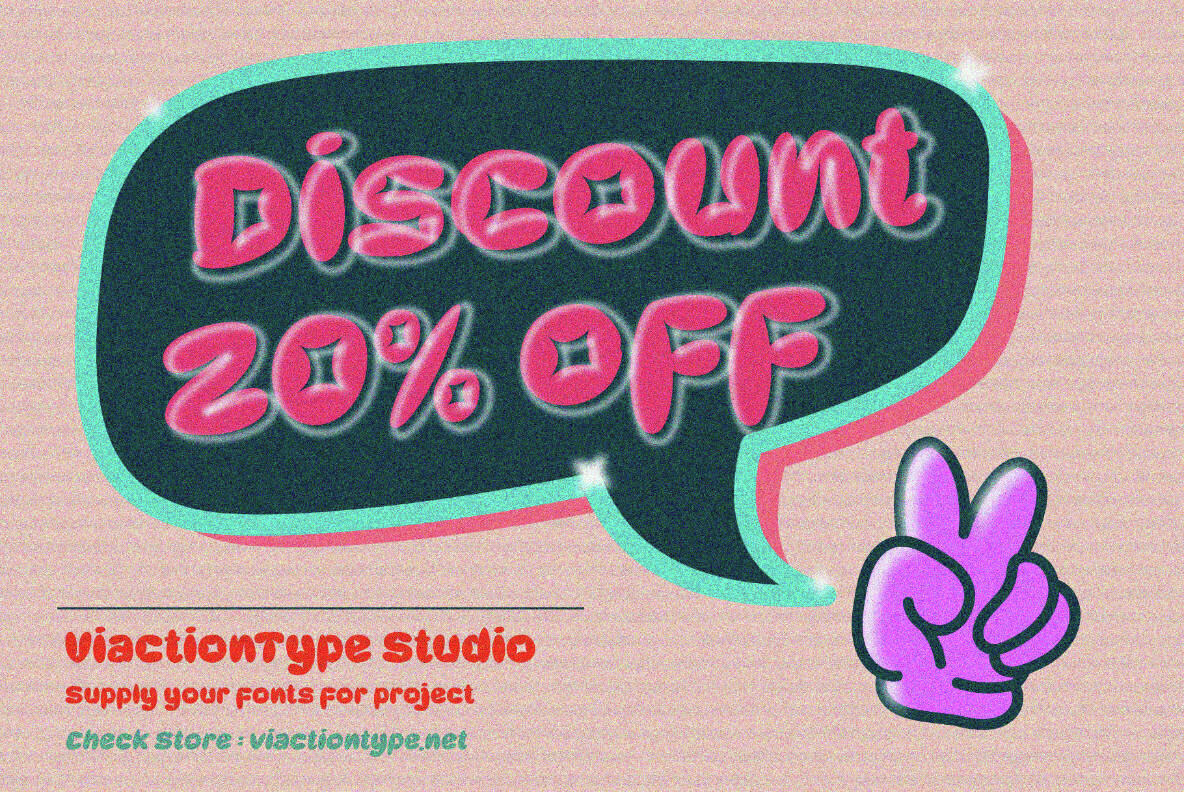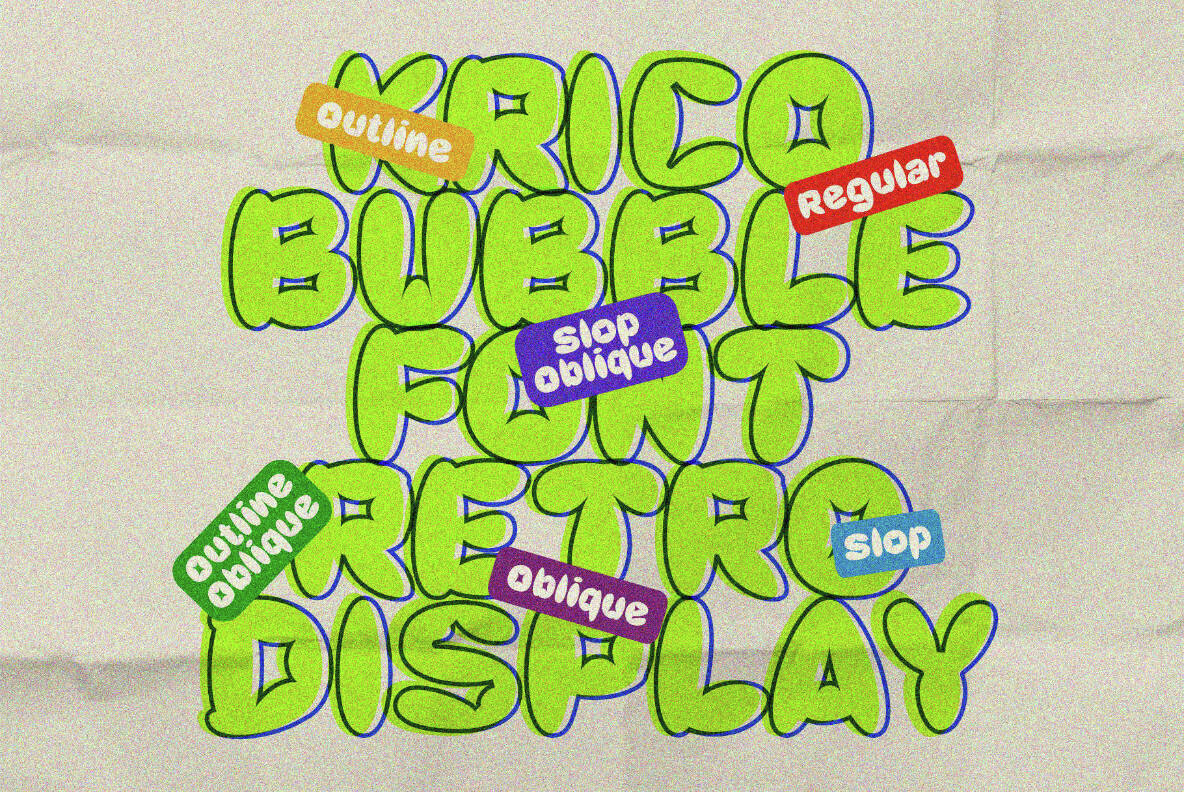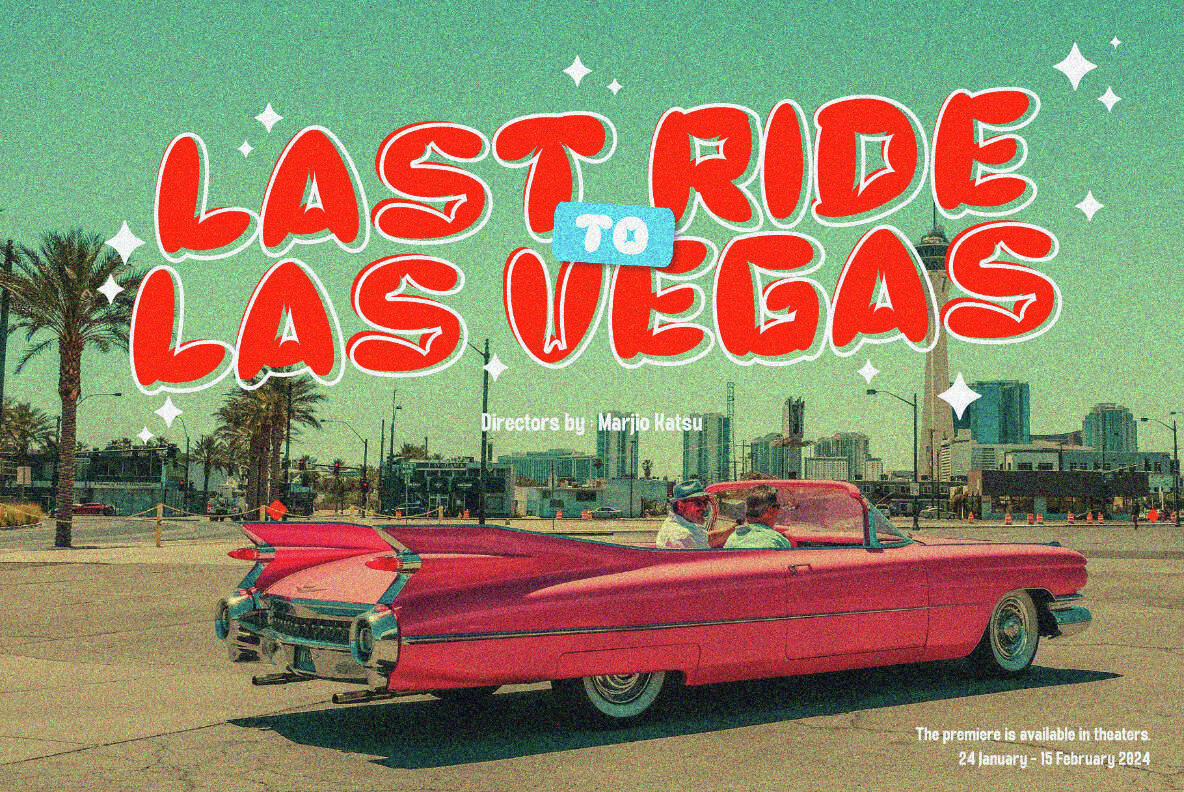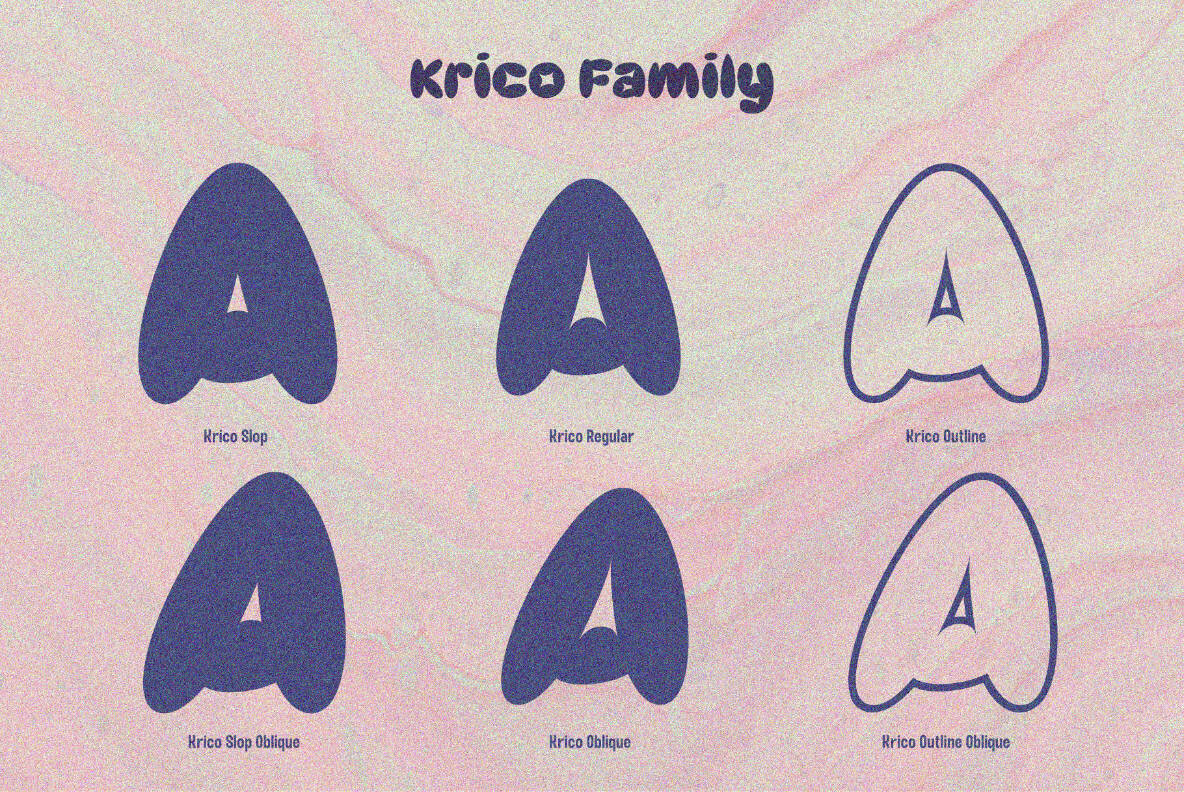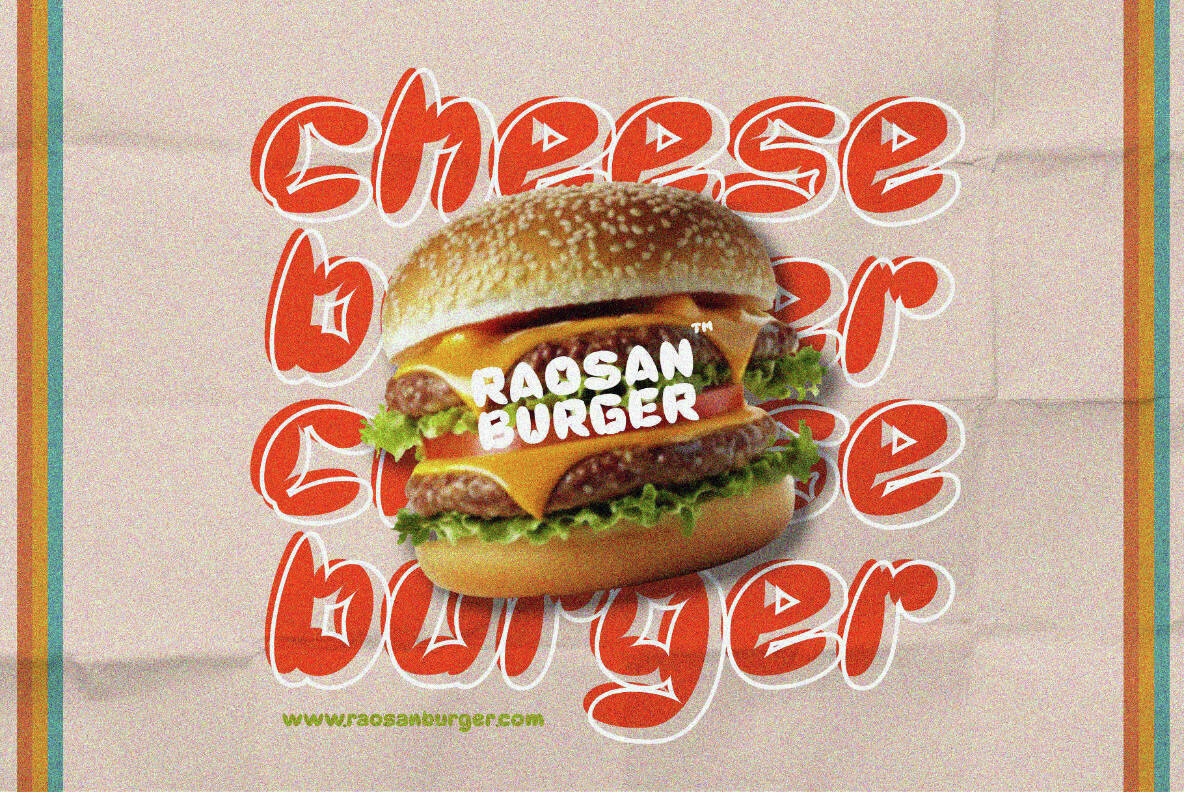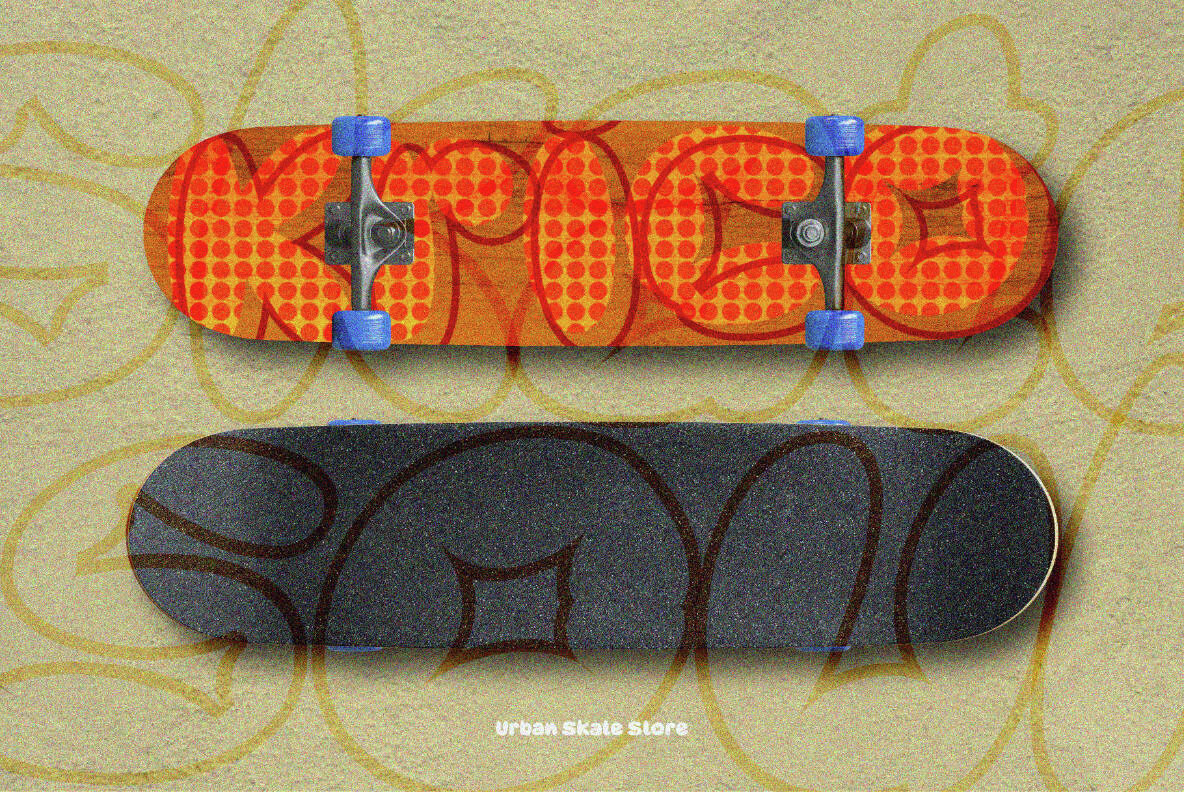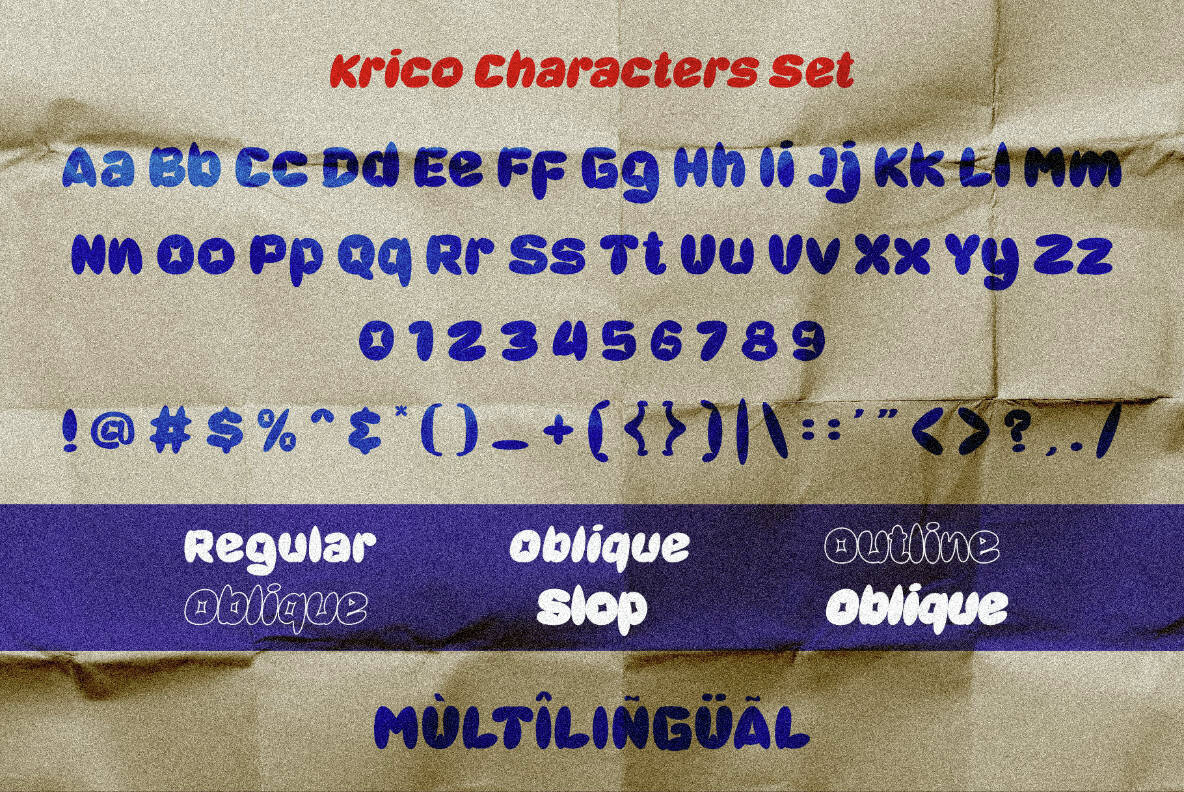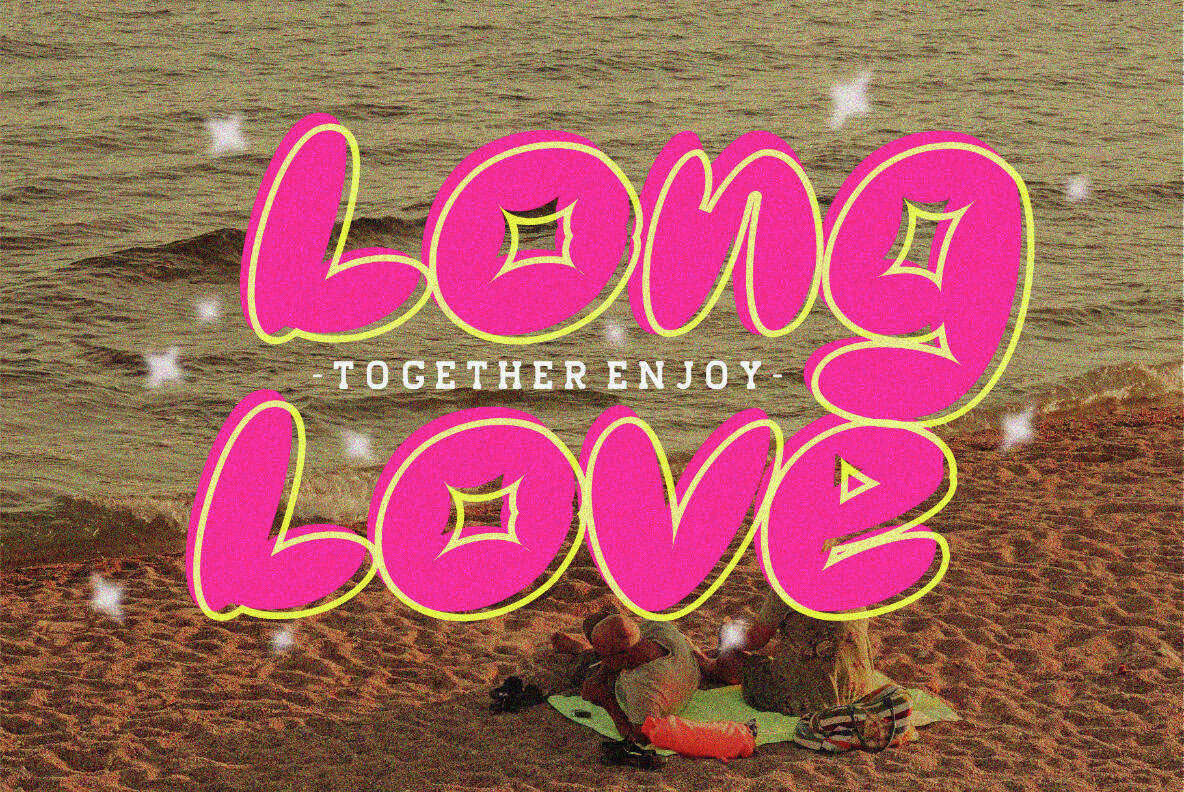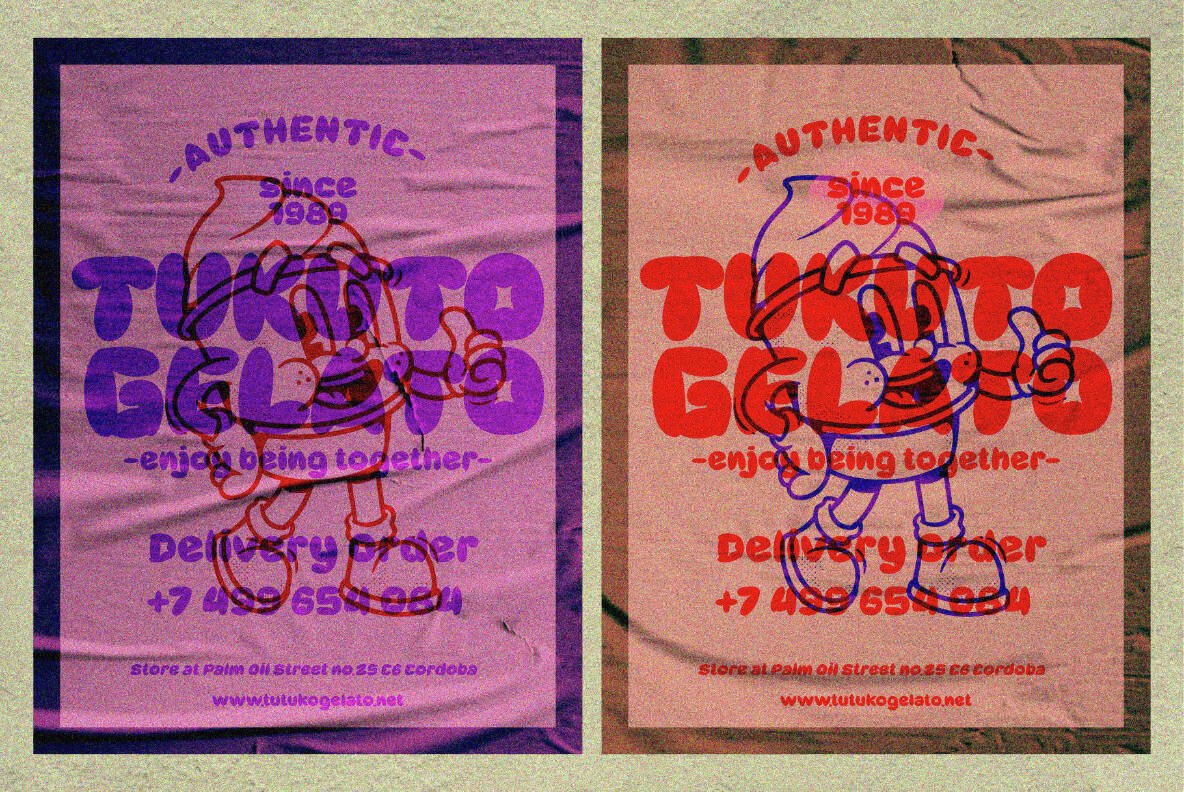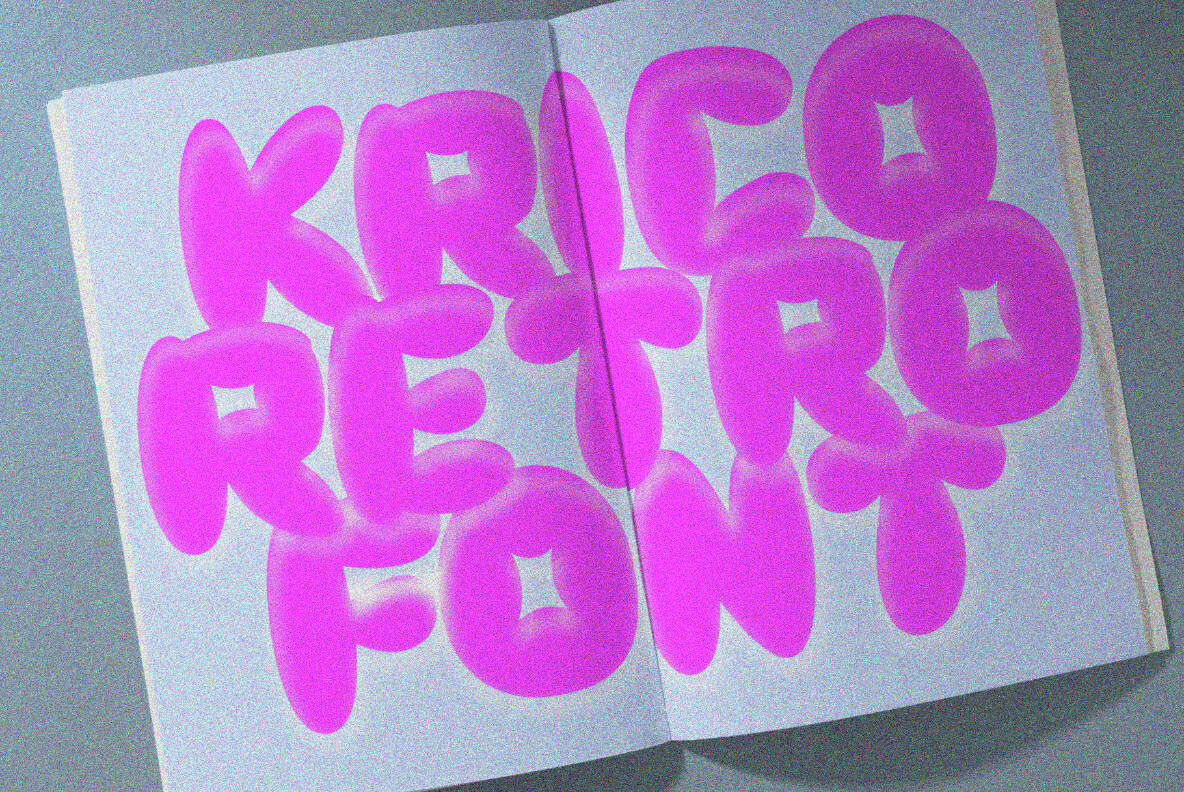
Krico Font
The Krico Font by Lukman Hidayat embodies an exuberant bubble style, offering a delightful touch to various design projects. With its captivating aesthetics, this font is perfectly suited for retro themes, playful designs, and children's projects.Krico: Playful Bubble Style Font